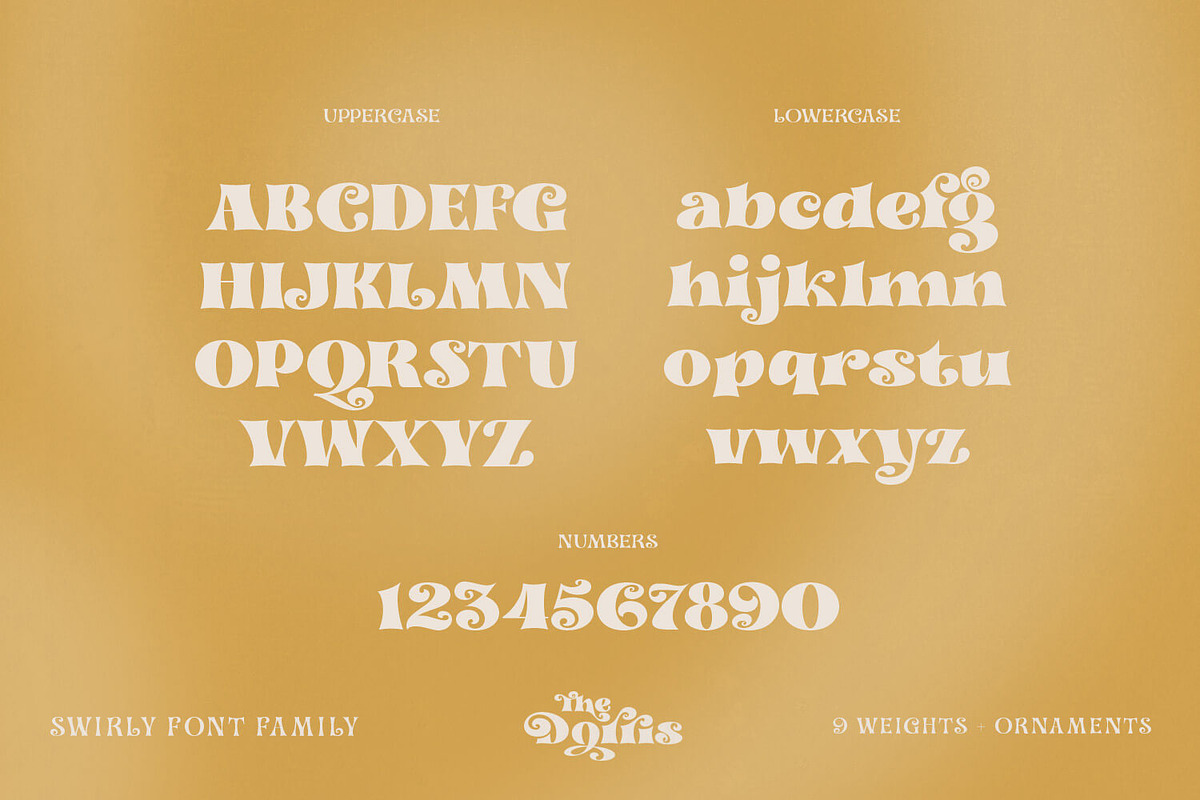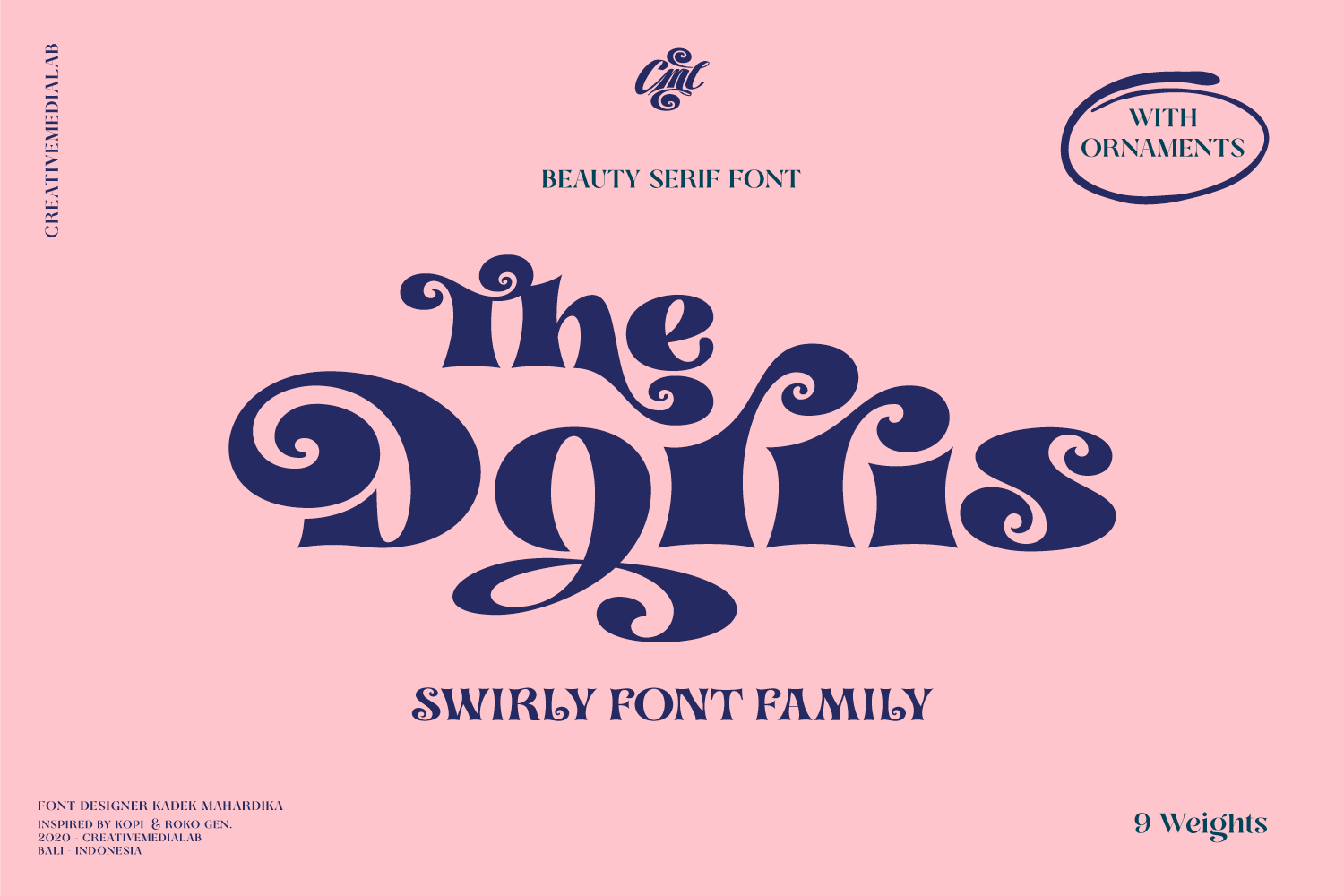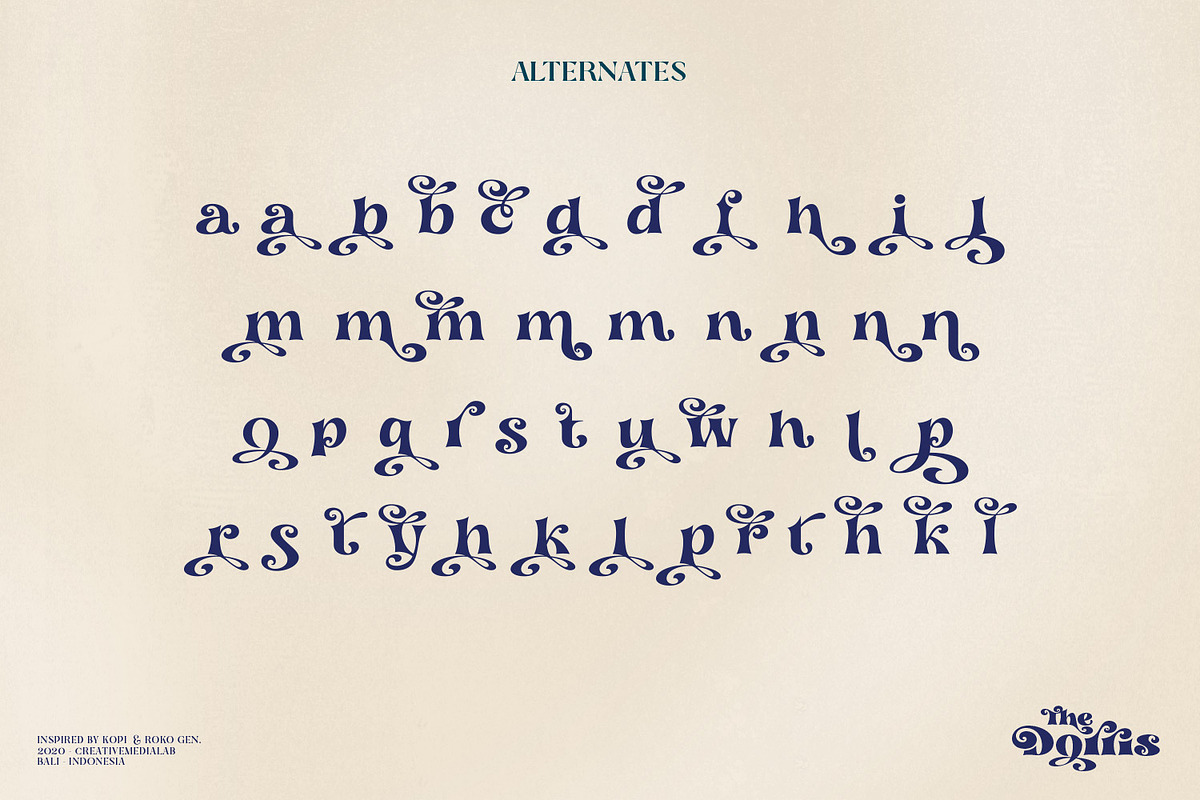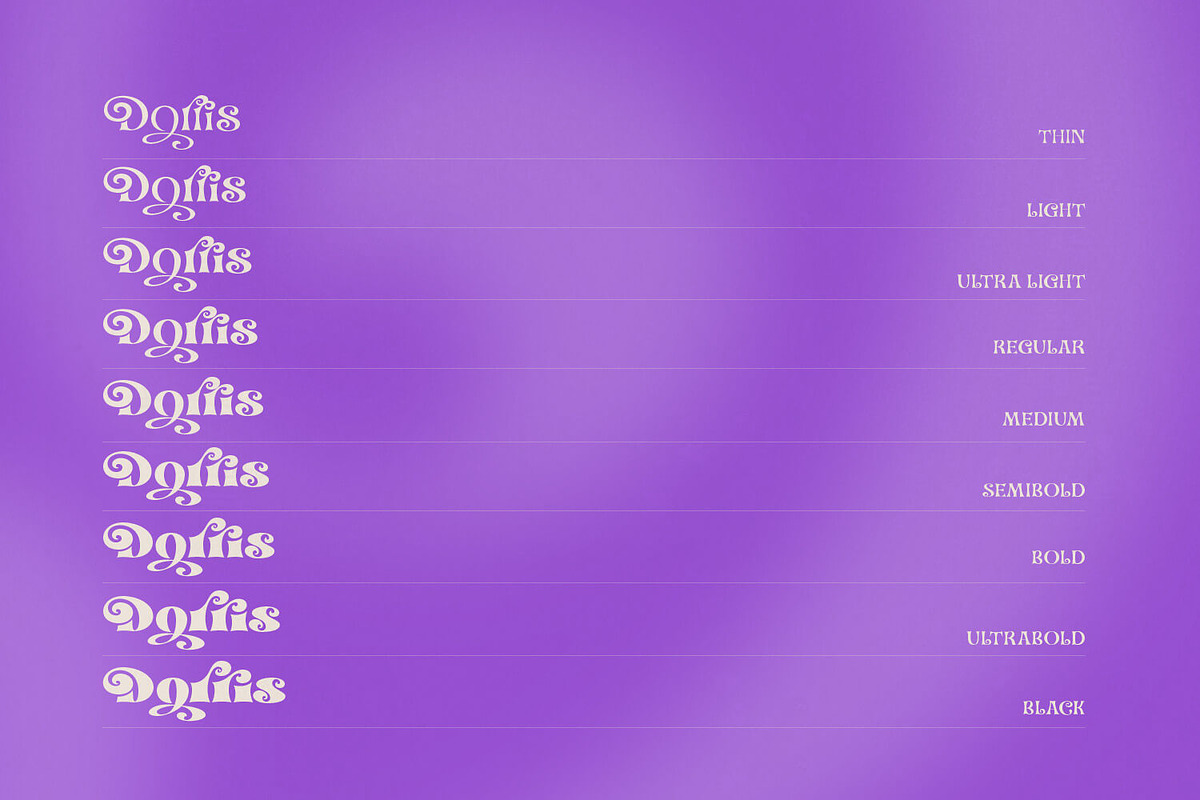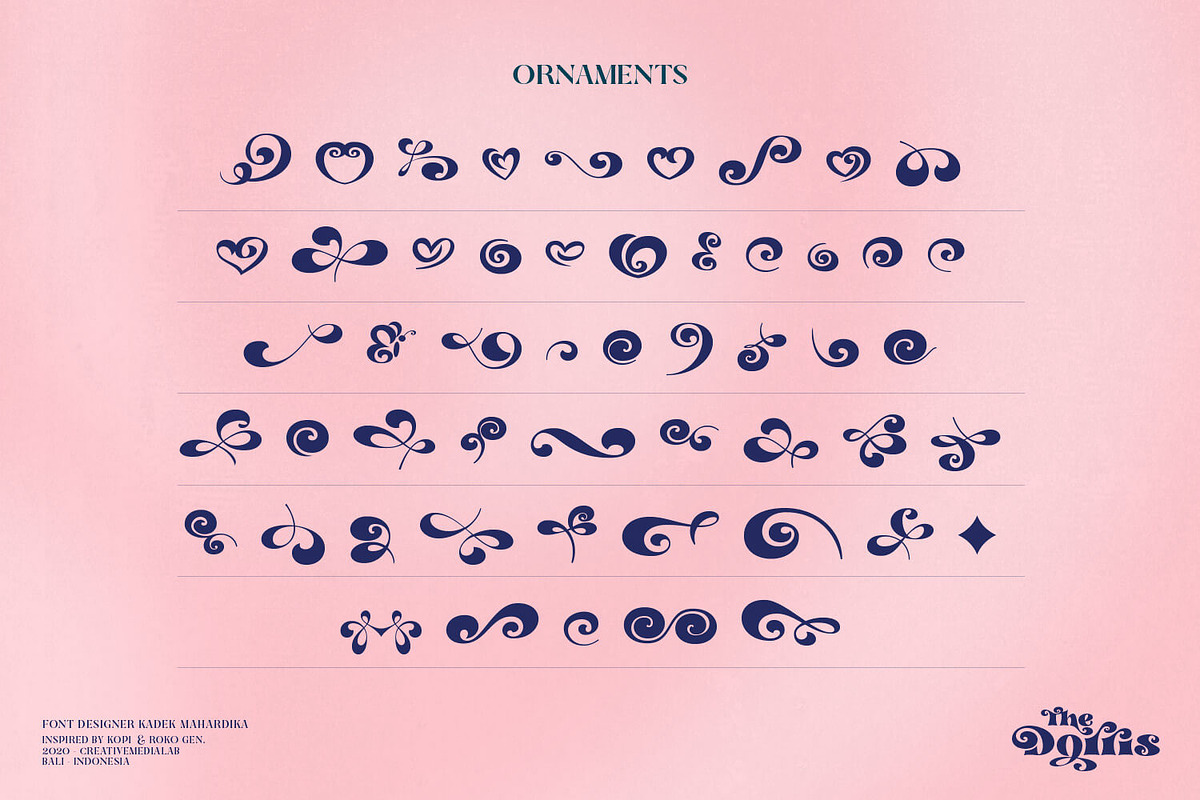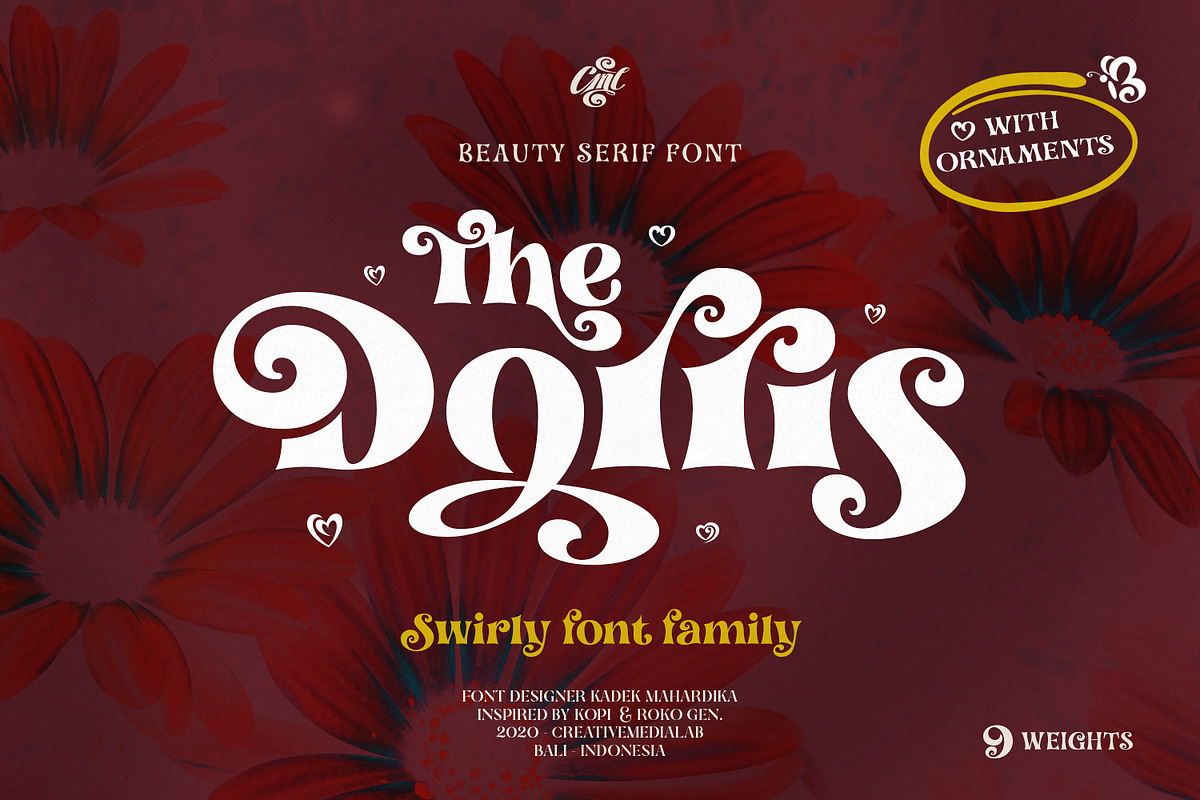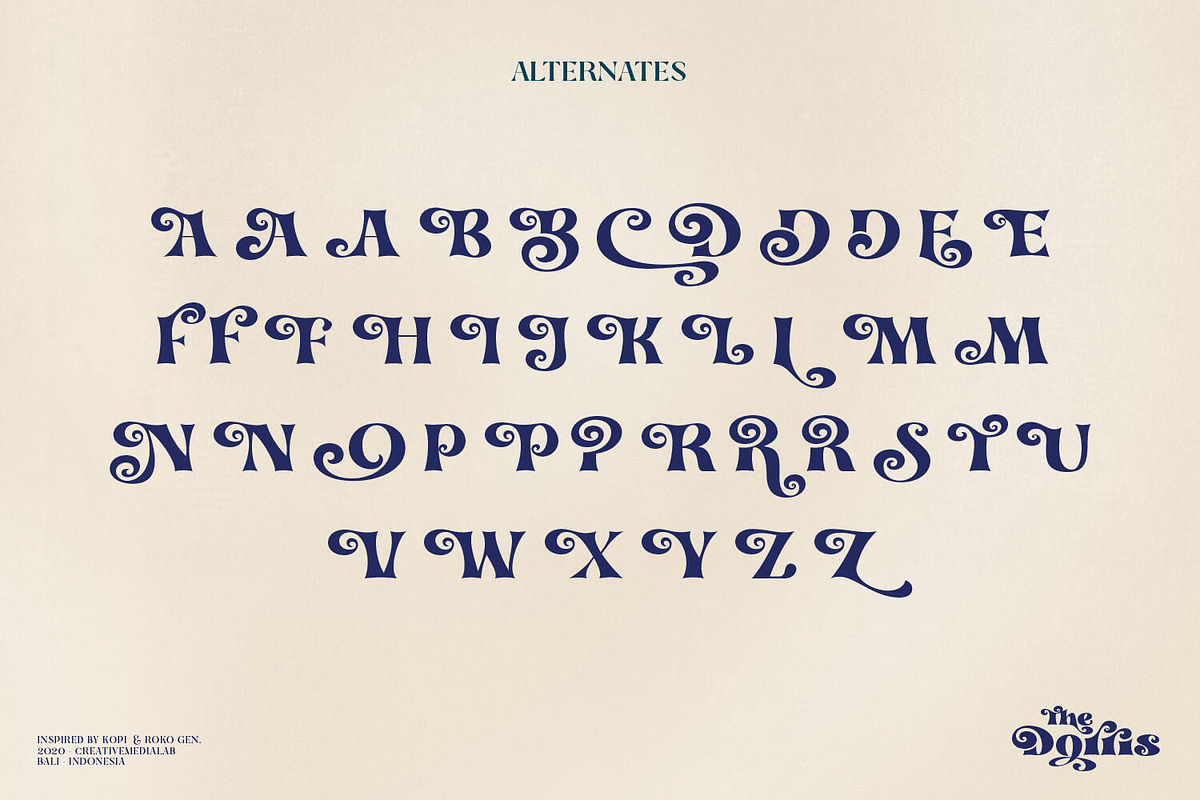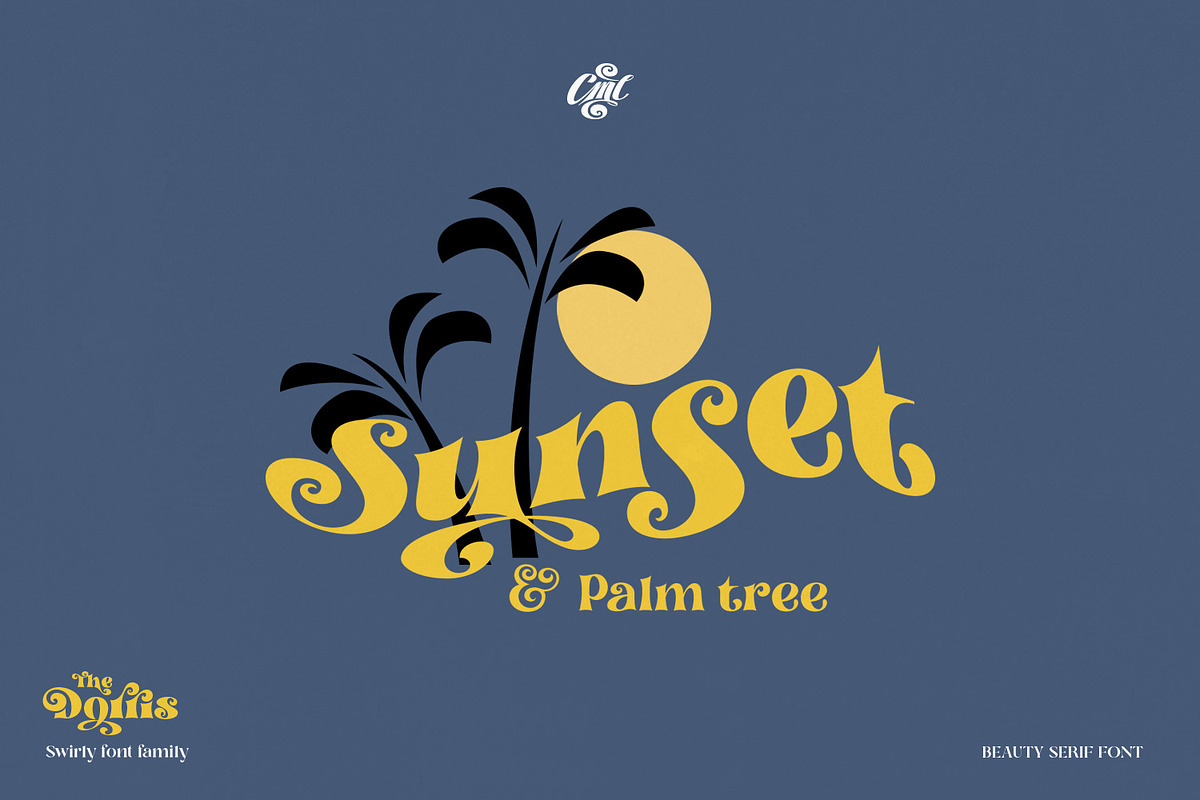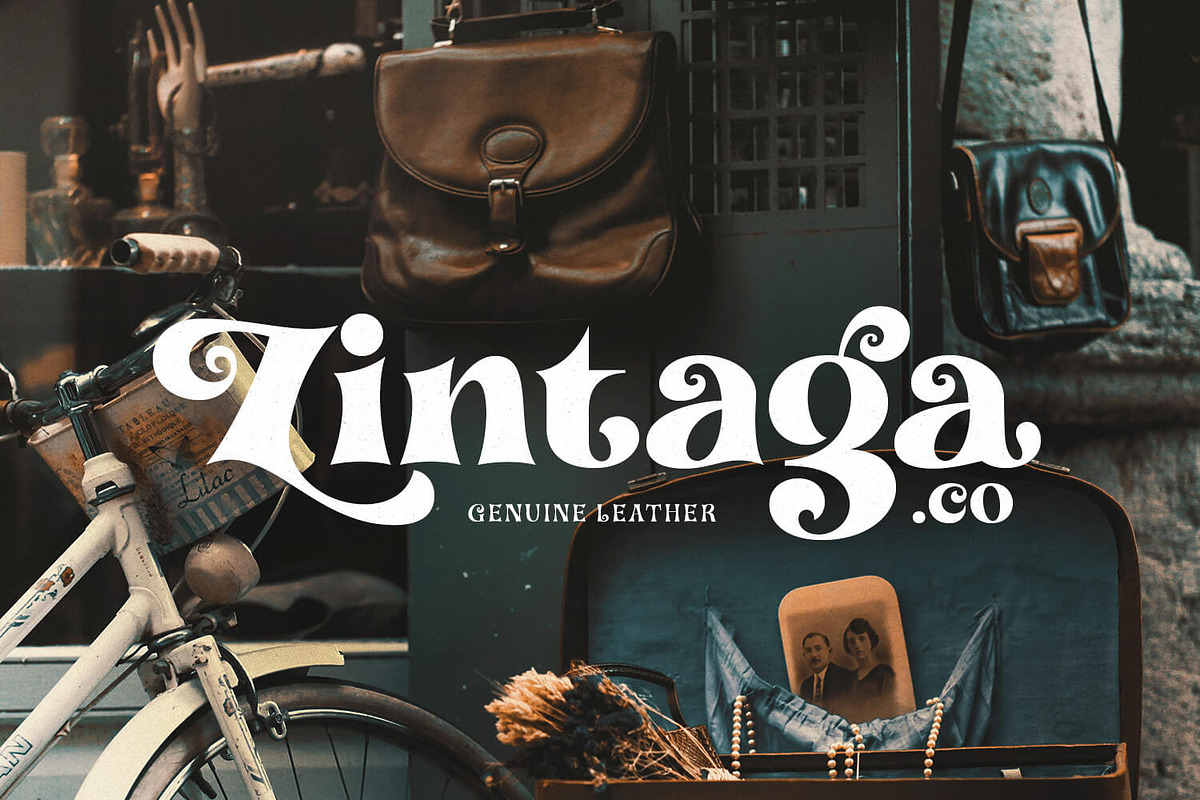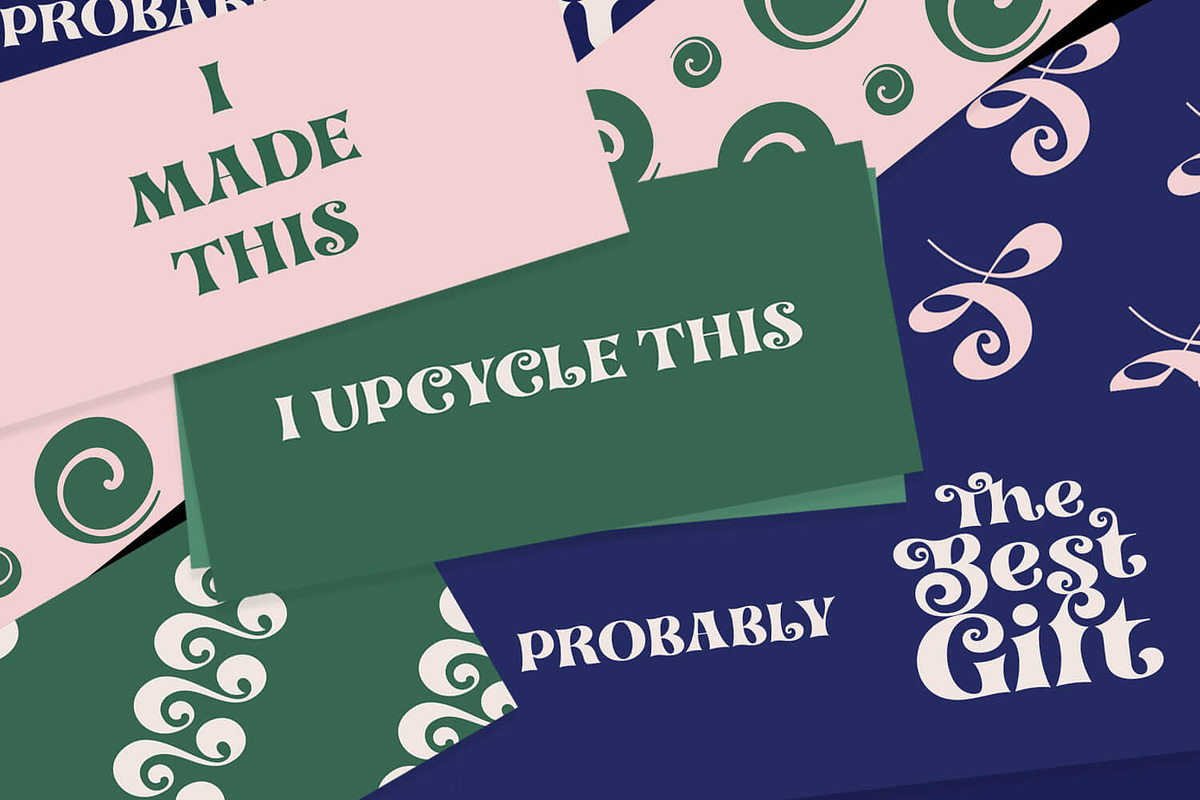
Dorris - Swirly Summer font family
Dorris - Swirly font family
Unique, cute and versatile serif family with alternates and ornaments. Try all capital letters for groovy retro style, or capitalize for a happy, cute and beauty look. Best for summer design projects
This Family has 9 weights from thin to black with a soft and curly tail that makes this font look funky and fresh.
Suitable for use in many design forms, for example, magazines, DIY projects, quotes, ice cream packaging, postcards, logos, vintage look badges, old classic music, the 60s, 70s, 80s era, stickers, label, kids, baby, wedding projects and many more. We recommend using Adobe Programs.